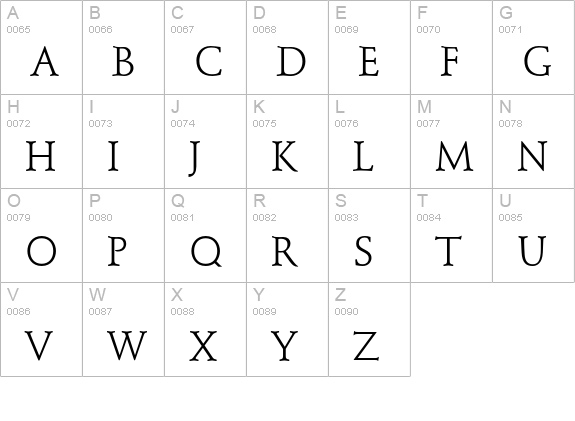
Stempel Schneidler Std Roman font is a timeless and elegant typeface that exudes sophistication and class. With its classic serifs and balanced proportions, this font is perfect for adding a touch of refinement to any design project. The sturdy letterforms and subtle details make it a versatile choice for both print and digital applications. What's even better is that Stempel Schneidler Std Roman font is available for free download at FontsMarket.com. Whether you're working on a professional branding project or a personal creative endeavor, this font is sure to elevate your work with its timeless charm and legibility. Don't miss out on the opportunity to add this beautiful typeface to your font collection today!